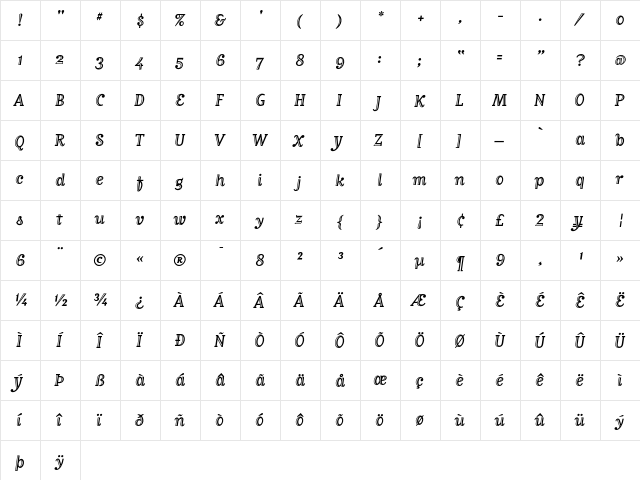
MatrixInlineScript Medium
Design Context for MatrixInlineScript Typeface
MatrixInlineScript brings a calligraphic fluidity to the page — its connecting strokes and expressive curves give it an unmistakably human quality.
Font Pairing: Combine MatrixInlineScript with a simple geometric sans for maximum contrast — the tension between flowing curves and clean structure is a classic typographic pairing.
Pro Tip: Use MatrixInlineScript for short runs of text — names, titles, or taglines. Extended body copy in script faces tires the eye quickly.